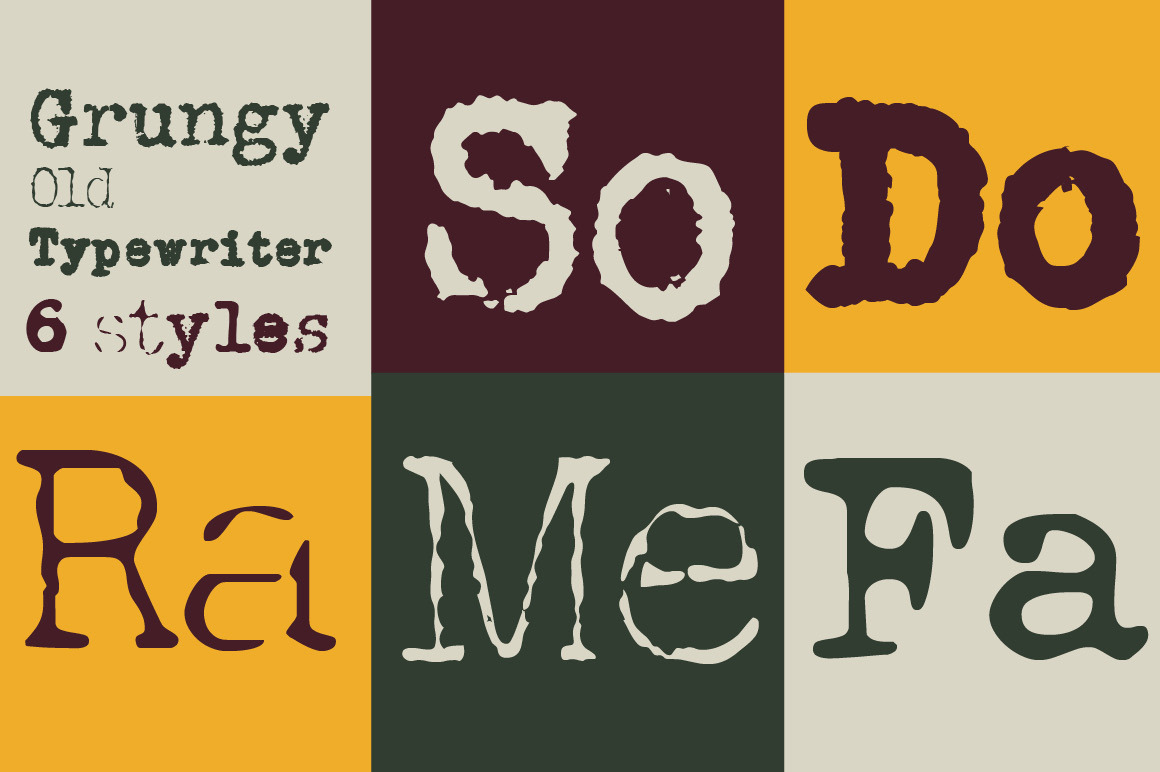
Grungy Old Typewriter Font Family
This font is based on two typed letters, each on two pages and dated 1901. The results are eroded, rough, irregular, and grungy. The final results are a vintage look. As a designer, I wanted as much flexibility as possible so there are 6 versions that are designed to work together. Additionally, I decided to keep the grunge and irregularities within the shape and not include surrounding typewriter or paper marks. I leave it to the designer to add those elements as desired.